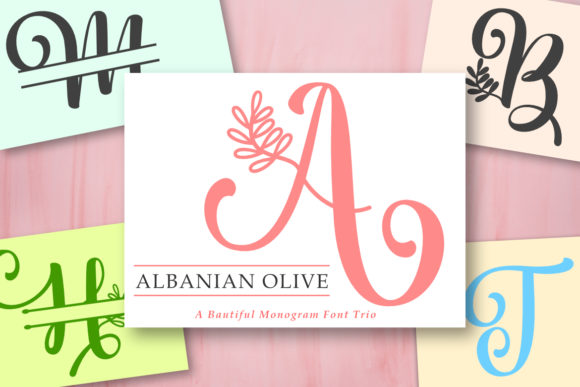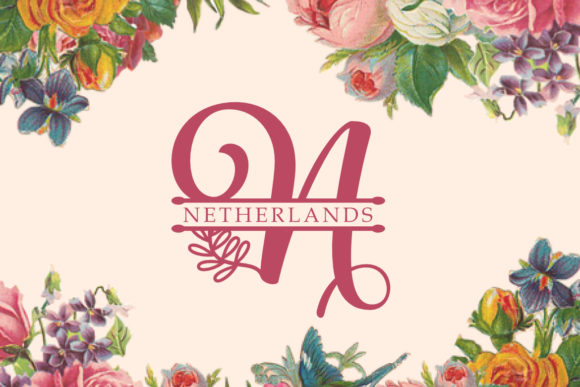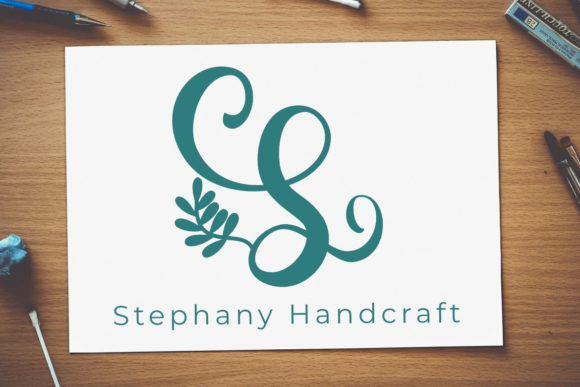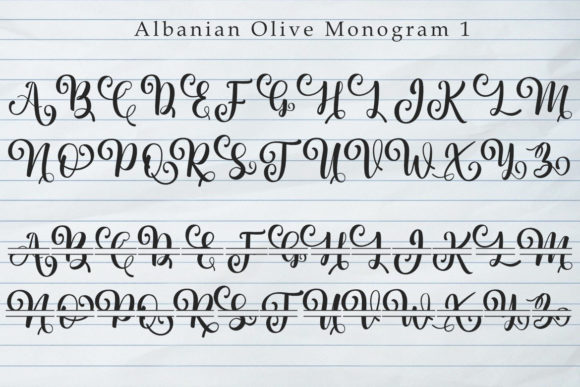
Albanian Olive Monogram Font
About the Albanian Olive Monogram Font
We are excited to introduce Albanian Olive Monogram Font, a must-have typeface for any serious designer. Albanian Olive Monogram is an elegant and delicate handwritten font. It looks stunning on wedding invitations, thank you cards, quotes, greeting cards, logos, business cards and every other design which needs a handwritten touch.
Its delicate nature makes it ideal for branding projects requiring a touch of sophistication, particularly logos, monograms, and short-form text on packaging or stationery. However, its thin strokes and cursive style make it unsuitable for body text or UI elements where readability is paramount. Avoid using it in long paragraphs or small sizes.
Albanian Olive Monogram pairs well with clean sans-serif fonts like Montserrat or Open Sans for a balanced contrast. For a more traditional feel, consider pairing it with a serif like Garamond or Didot. These combinations provide a strong visual hierarchy, allowing the script font to shine as an accent.
The overall personality is elegant and refined, conveying a sense of understated luxury and handcrafted quality. It’s perfect for brands aiming for a timeless, sophisticated aesthetic within the fashion, beauty, or lifestyle sectors.
Albanian Olive Monogram Font Usage Examples
Albanian Olive Monogram Font Example